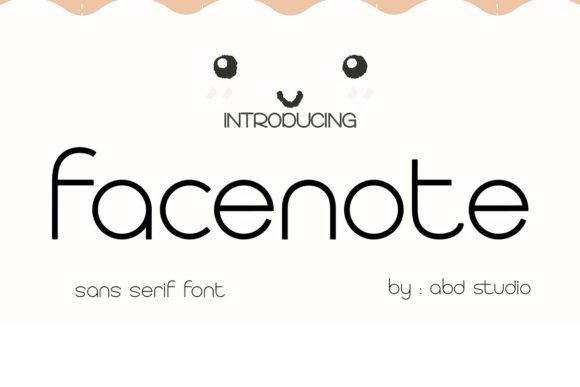
Welcome to the world of Facenote Font, where creativity meets simplicity. This remarkable sans serif font designed by ABDStudio is like a breath of fresh air in the world of typography. With its minimalistic design and exceptional clarity, Facenote is not just a font; it's an invitation to express your thoughts and ideas with grace and elegance.
Step into a realm where words come to life, a world where the letters dance across the page, capturing hearts and imaginations. Facenote Font is not merely a collection of characters; it's a symphony of strokes, curves, and lines that harmonize beautifully to create a masterpiece.
With its childlike charm and friendly demeanor, Facenote Font is the perfect choice for projects that aim to capture the innocence and wonder of youth. Imagine a children's book, its pages adorned with Facenote's playful characters, inviting young readers to embark on magical adventures.
But Facenote Font's versatility doesn't end there. Its clean and legible design makes it equally suited for projects that demand clarity and professionalism. Whether it's a business proposal, a marketing brochure, or a website design, Facenote Font adds a touch of sophistication and polish that commands attention.
The beauty of Facenote Font lies in its simplicity. It doesn't overwhelm with excessive ornamentation or intricate details. Instead, it relies on the power of minimalism to create a lasting impression. Its effortless flow and rhythmic structure make it a joy to read, ensuring that your message is received with crystal clarity.
So, dive into the world of Facenote Font and let your creativity soar. Whether you're a seasoned designer or just starting your journey into the realm of typography, Facenote Font is your perfect companion. It's a font that will elevate your projects, adding a touch of magic to every word you write.